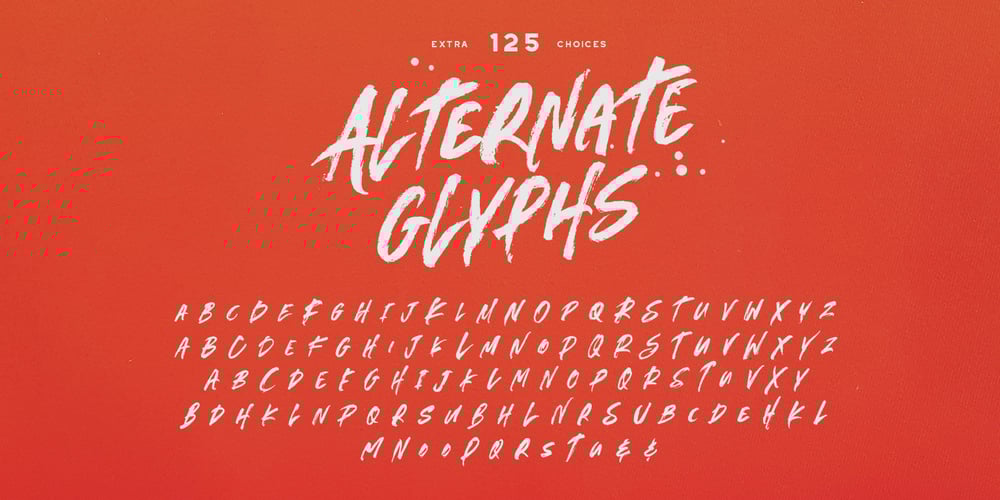
Outbacker Font Family was designed by Greg Nicholls and published by Rook Supply. Outbacker contains 3 styles and family package options. With Outbacker you’re not just getting a typical a-z font. You’re getting a font that has over 100 alternate glyphs, so that you can use the font to write phrases a ton of different ways. So, if you’re looking for the perfect ‘R’, you have 6 additional options to choose from in addition to what’s programmed for the default uppercase and lowercase characters. Choose more sharp characters if you’re going for something more aggressive, or more rounded characters if you want something with more of a laid back flow.